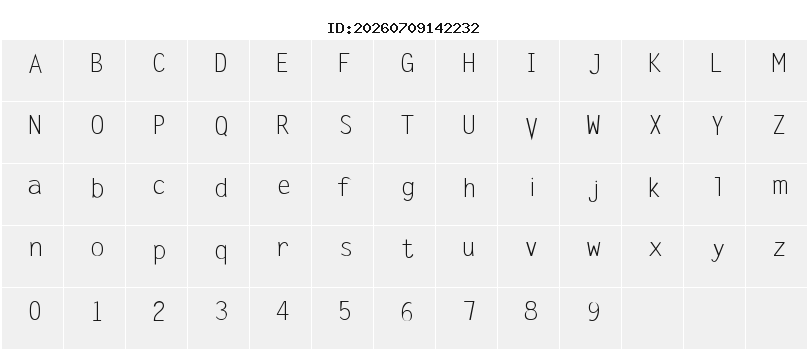
字体家AI造字前进 Preview
• Font Name: 字体家AI造字前进
• Font ID: AIzaoziQianjin
• Full Font Name: 字体家AI造字前进
• PostScript Name: AIzaoziQianjin
• Character Count: 7483
• Description: 这款字体是有一种民国时期的风格特征。
About 字体家AI造字前进.ttf
字体家AI造字前进.ttf is a modern, elegant sans-serif font designed for ultimate readability and visual harmony. Perfect for branding, headlines, web design, and print materials.